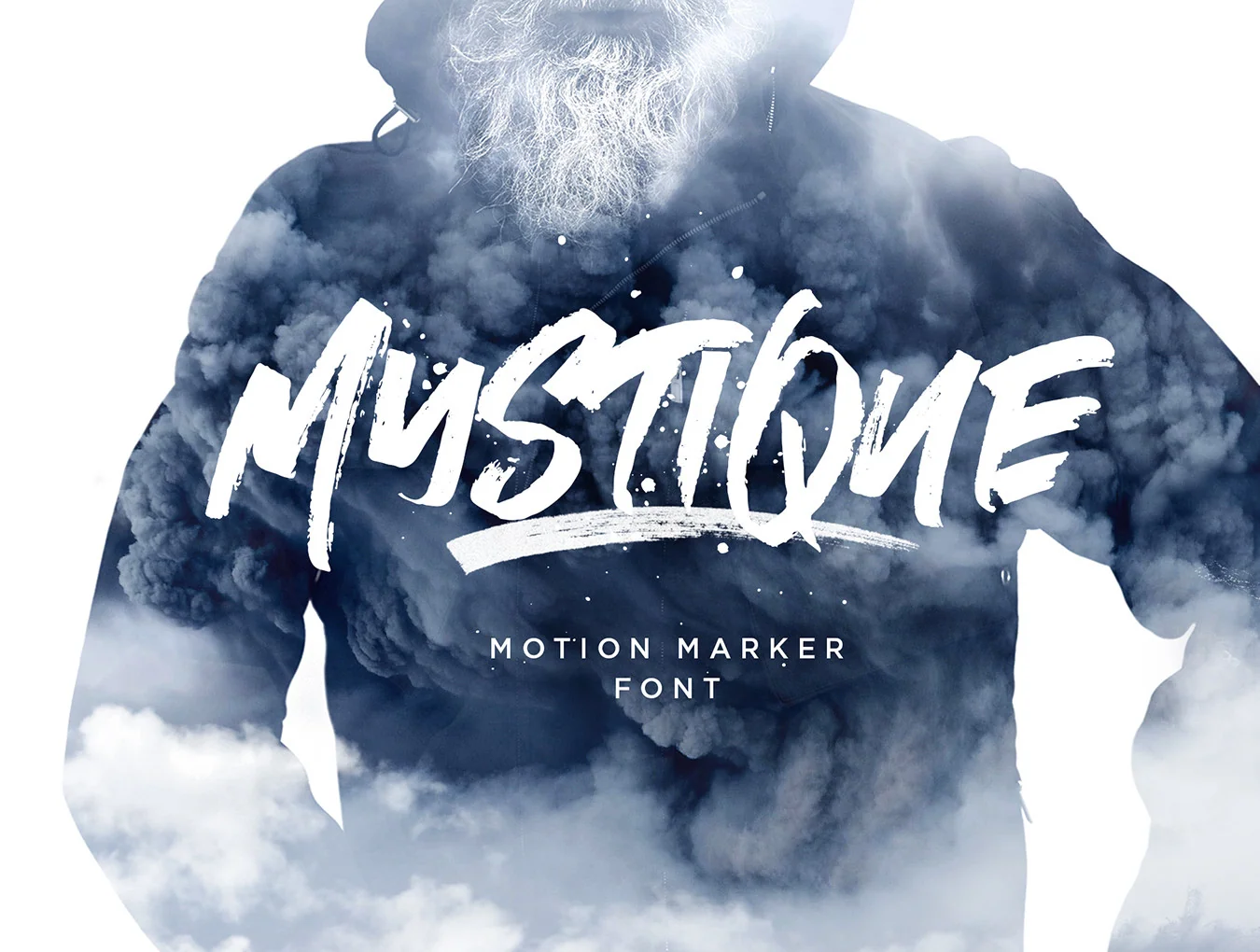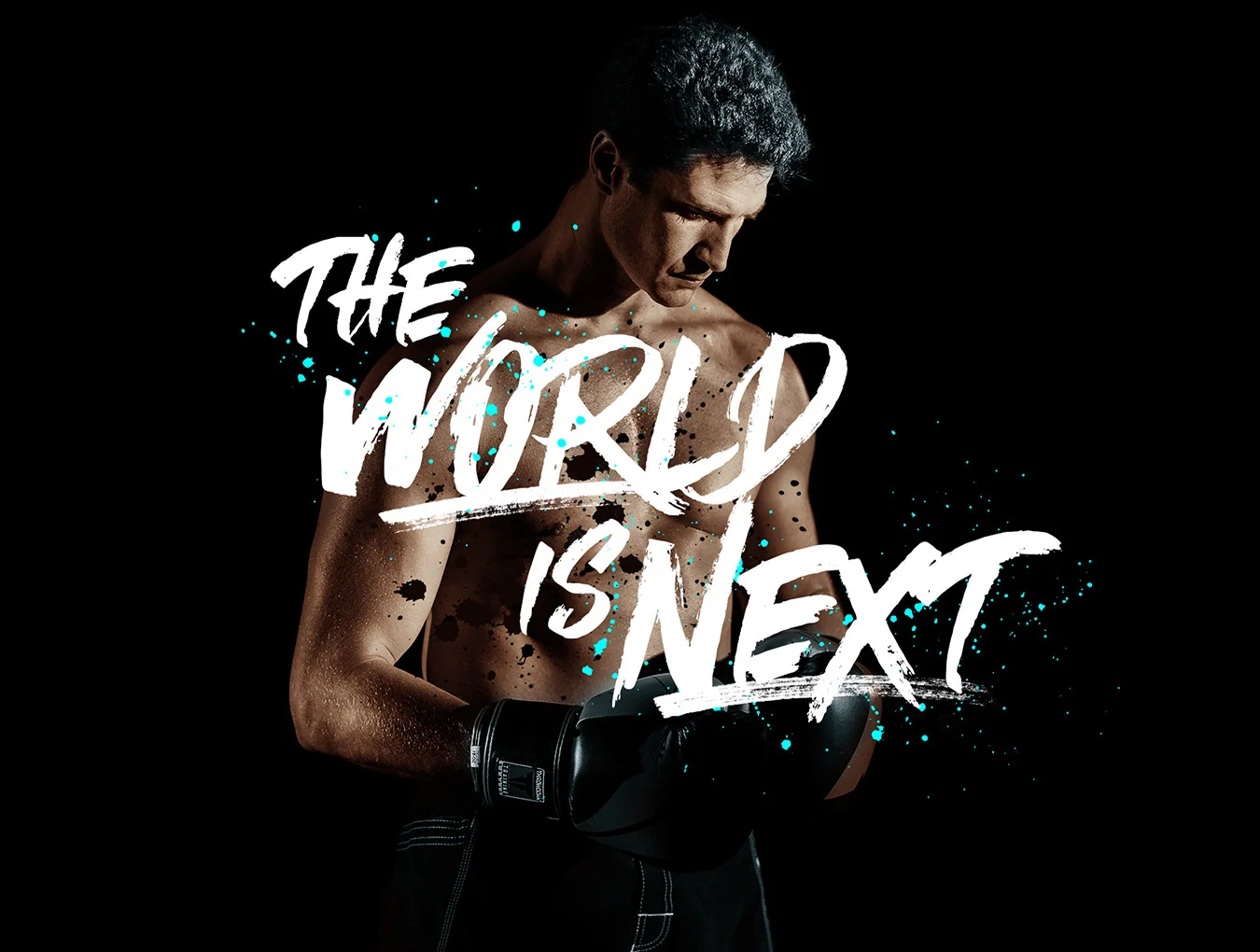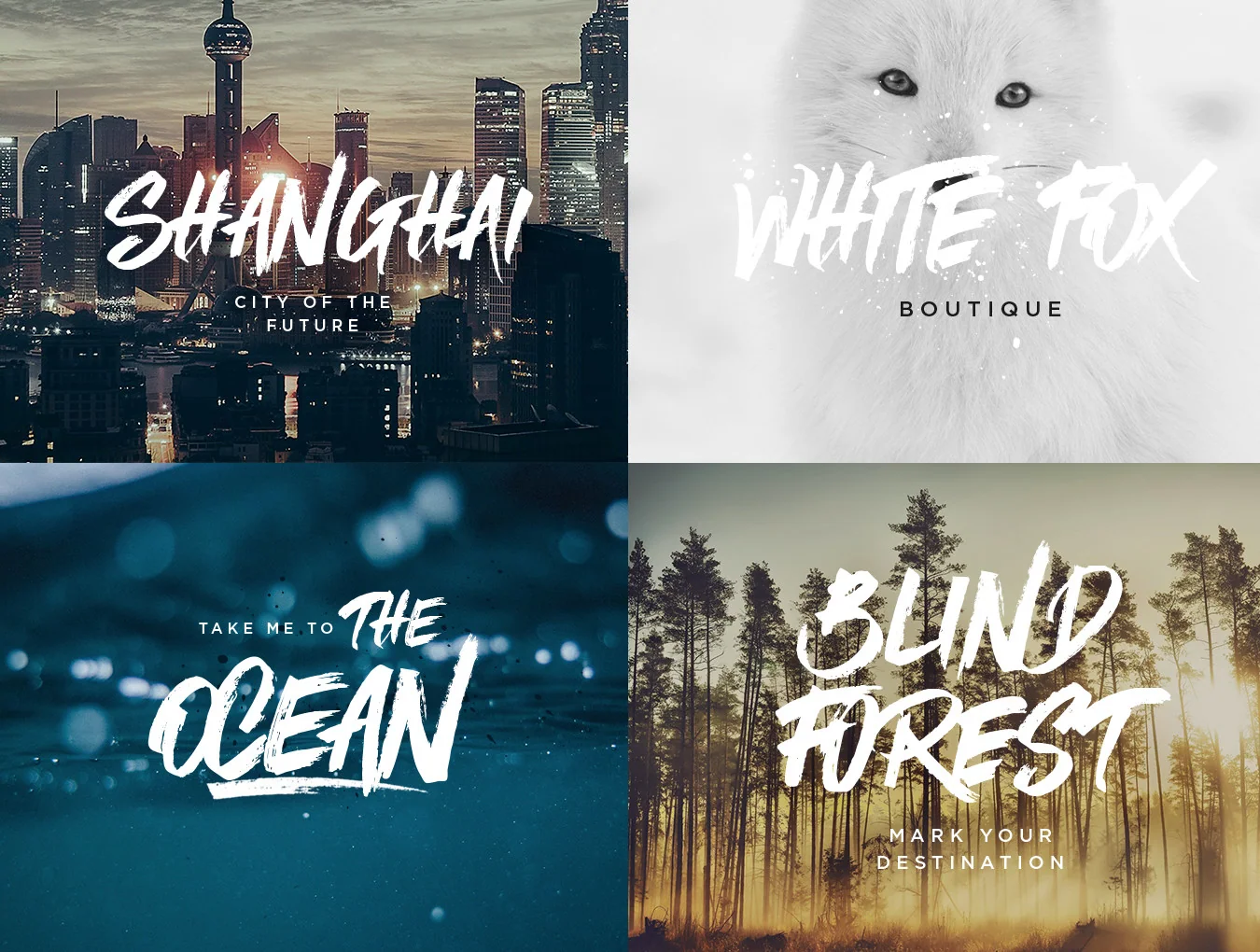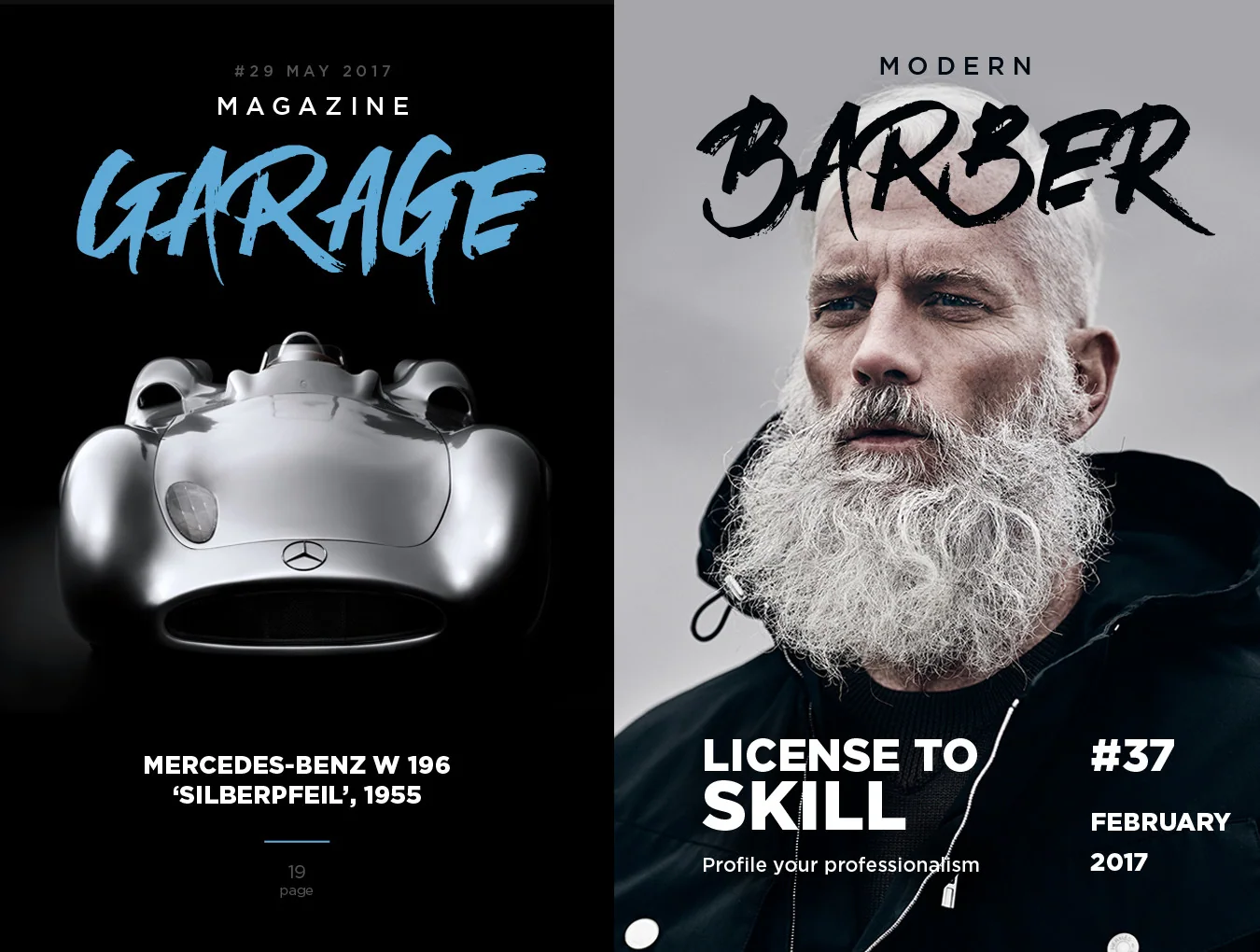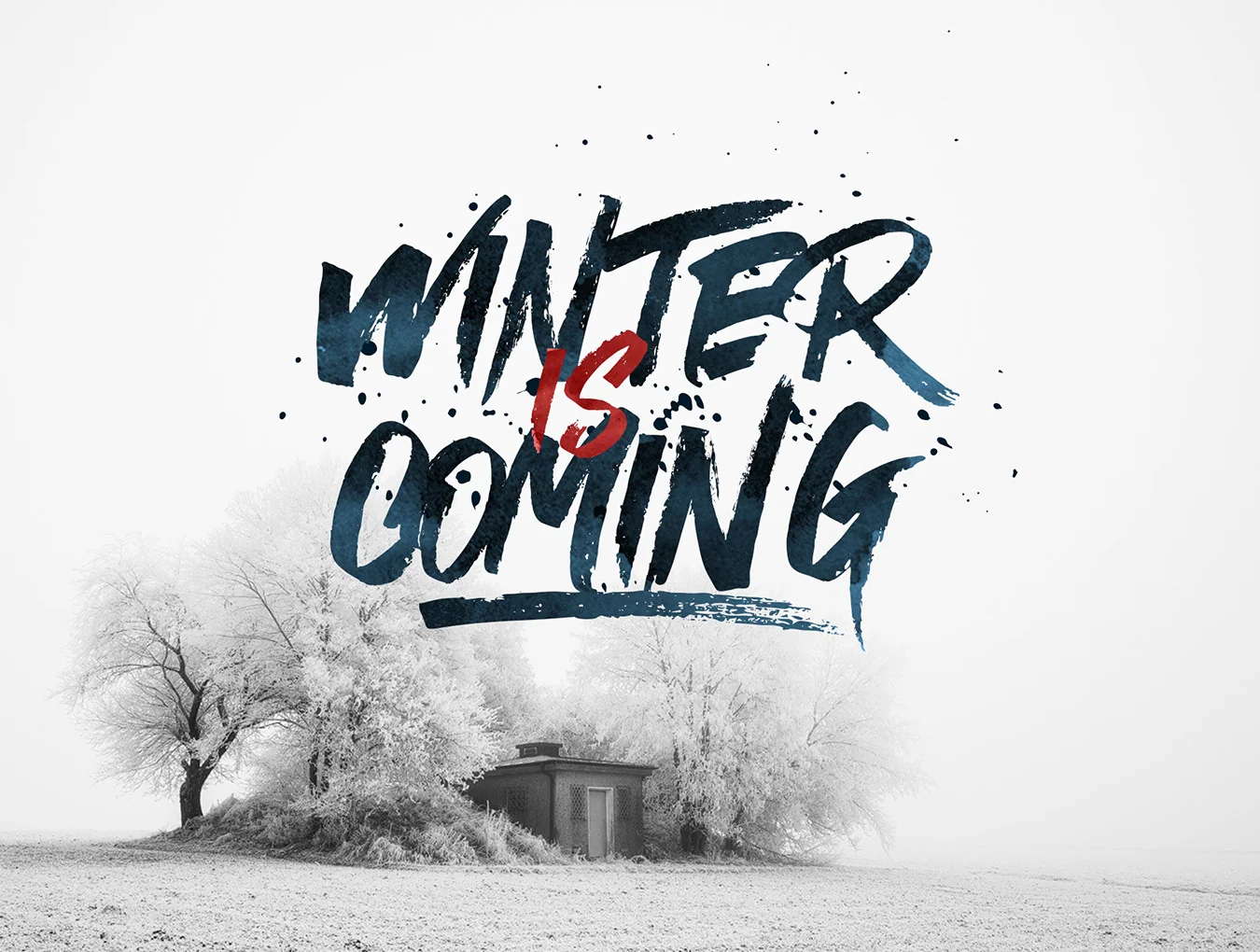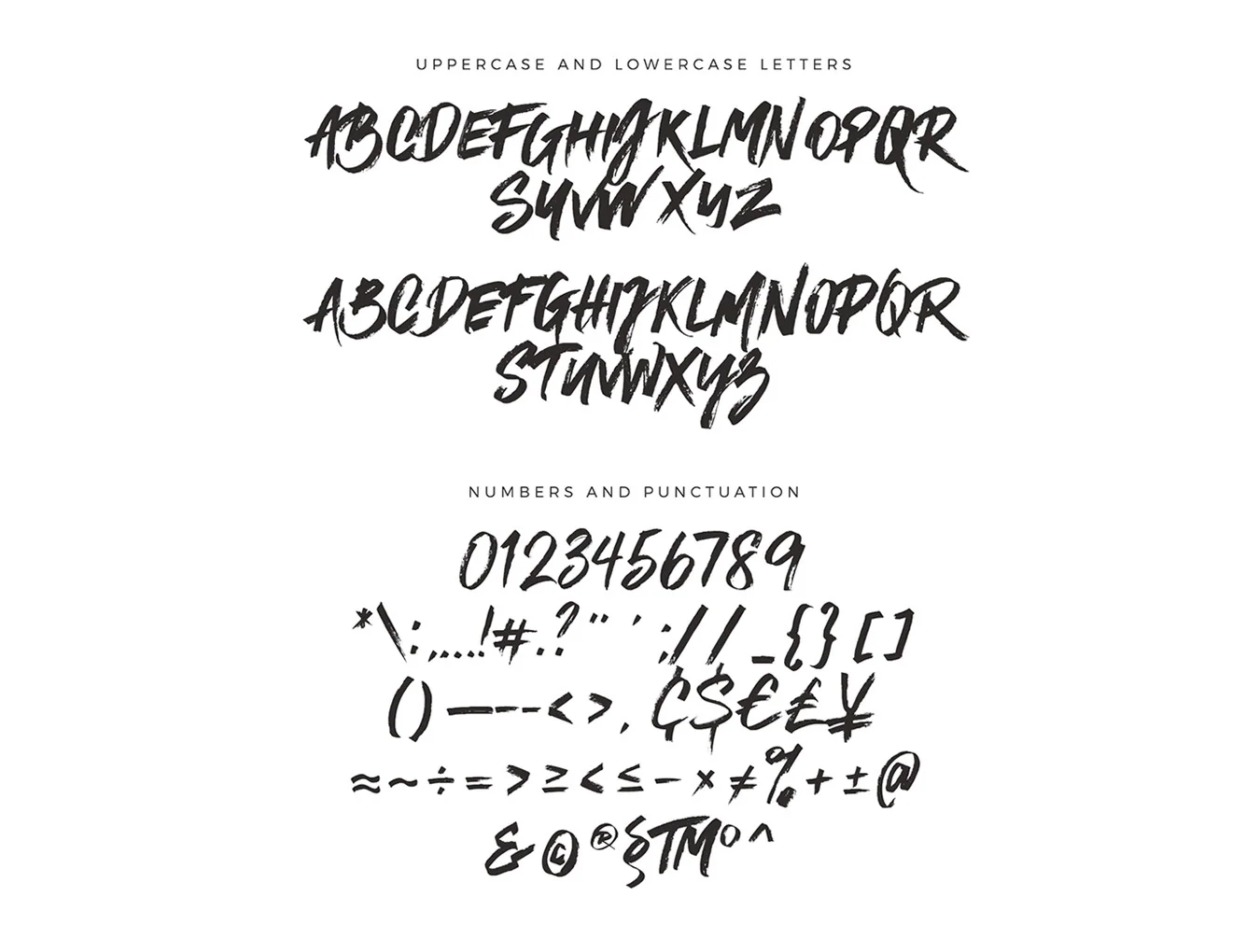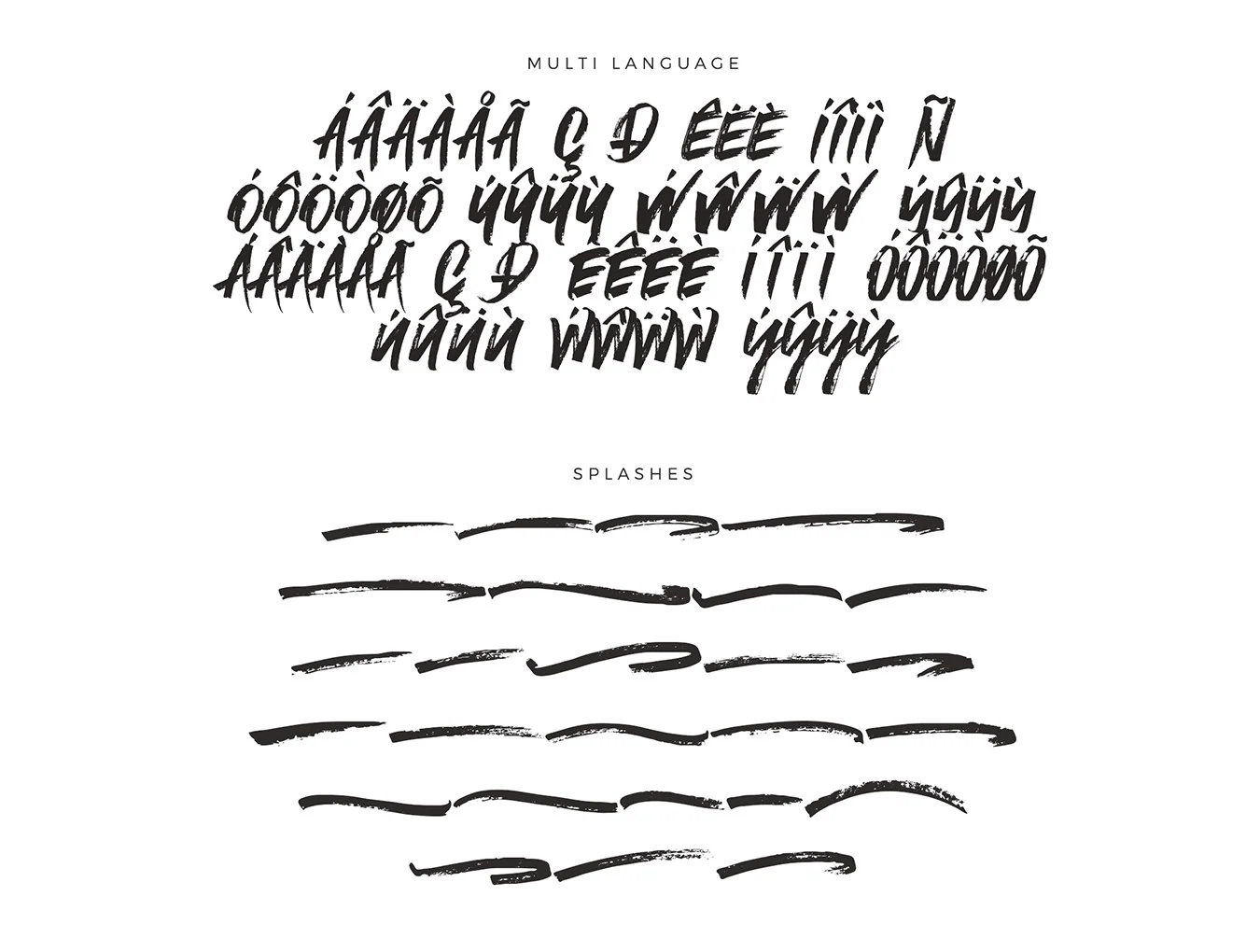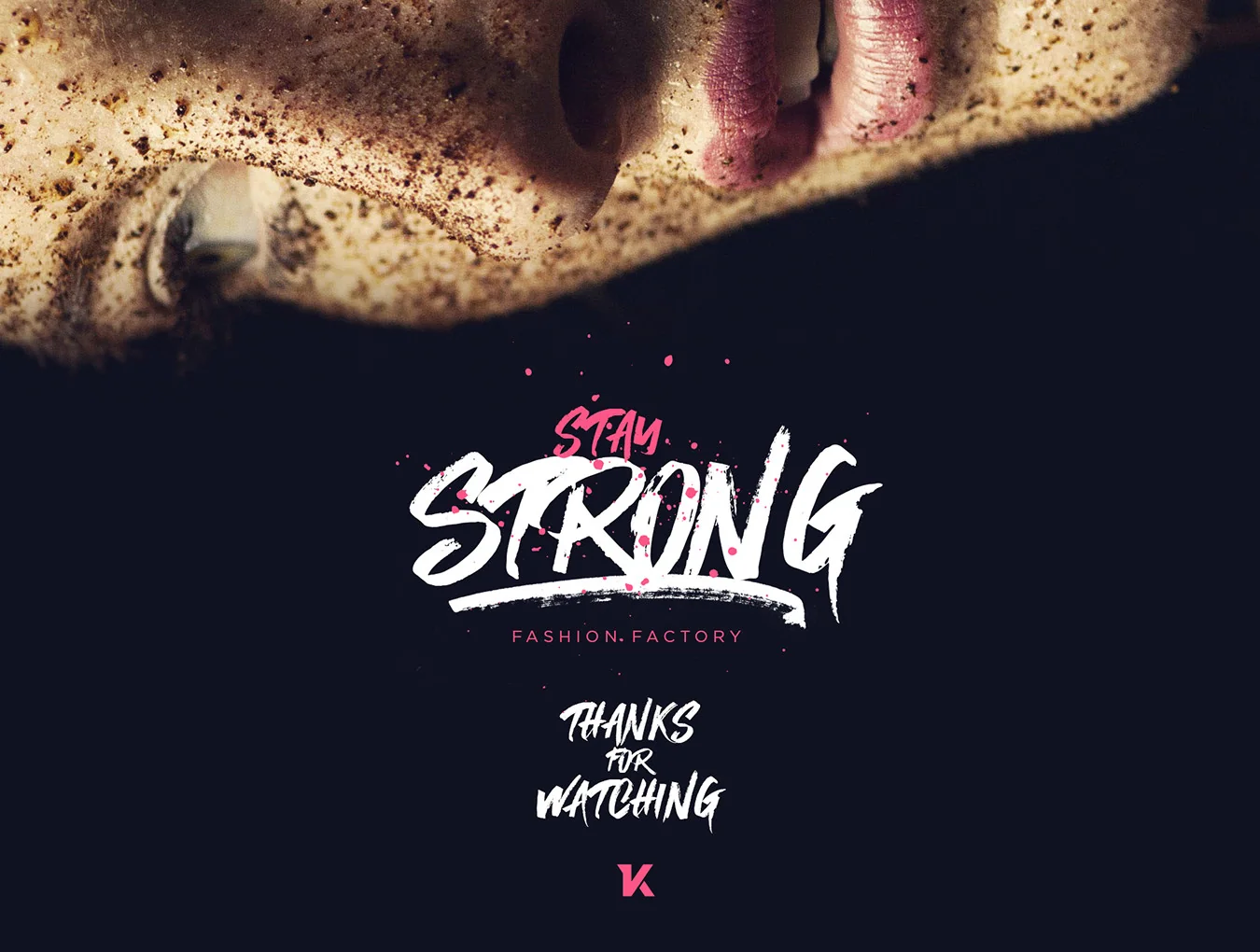
Mystique Marker Font
Ideal marker-style font for any project!
Numerals and punctuation marks
Paint splash and splatter elements
Alternative character forms
Mystique features complete uppercase and lowercase letters, letting you shape text with a genuine custom hand-lettered look. The font also offers a wide selection of glyphs, including numbers, punctuation, and multilingual characters.